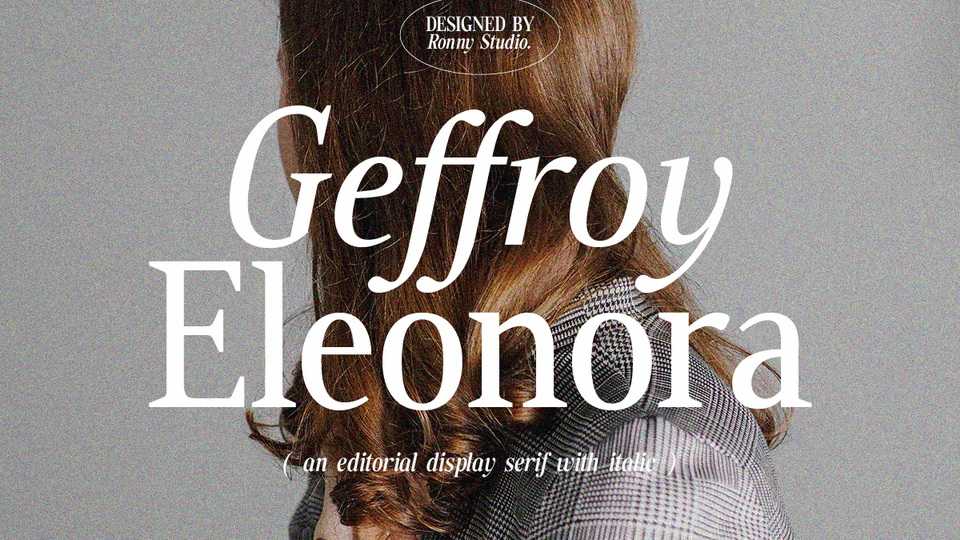
Download Geffroy Eleonora font, a classy eighties magazine-inspired serif typeface. Geffroy Eleonora font looks premium and is very suitable for any design needs.